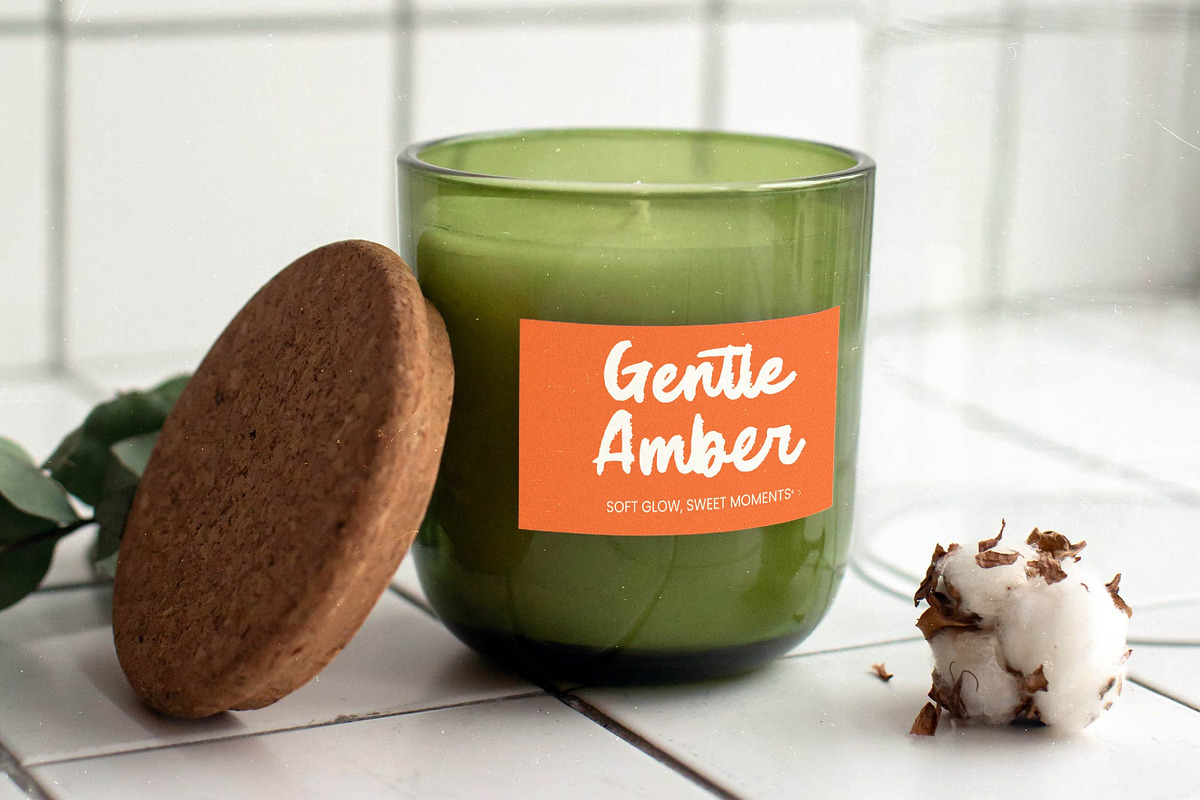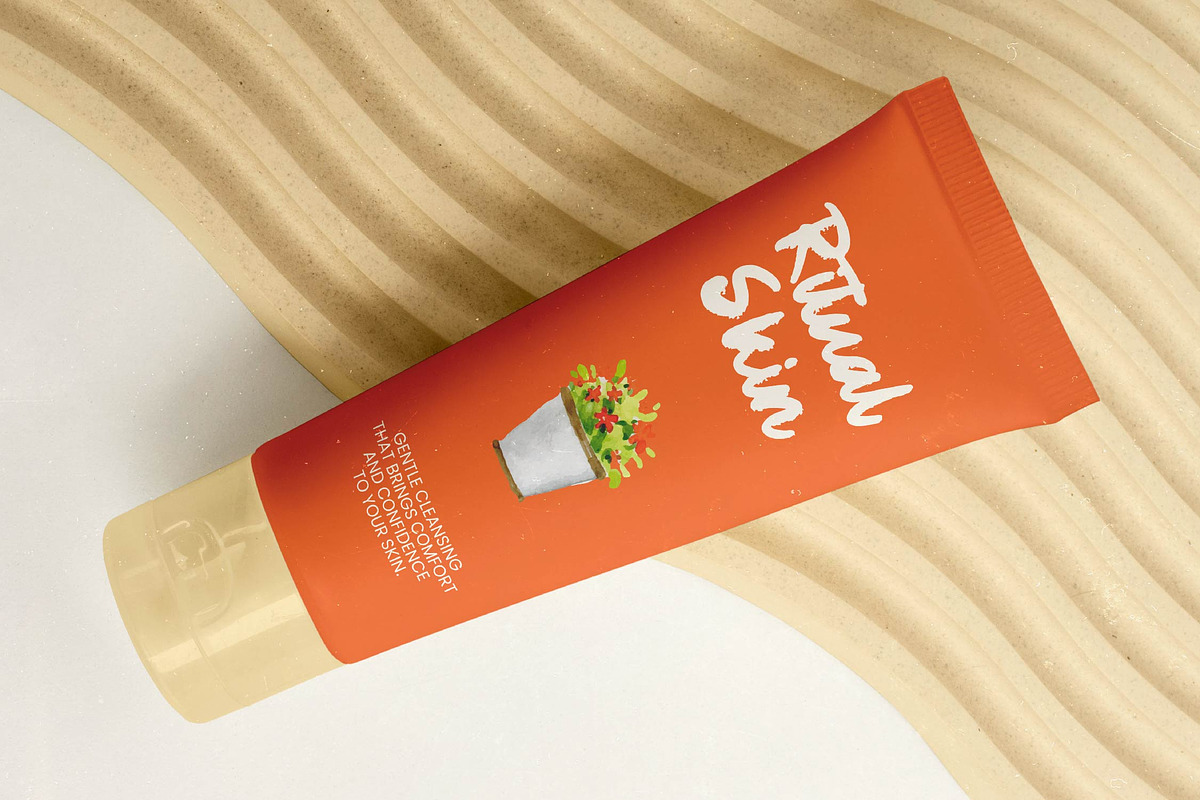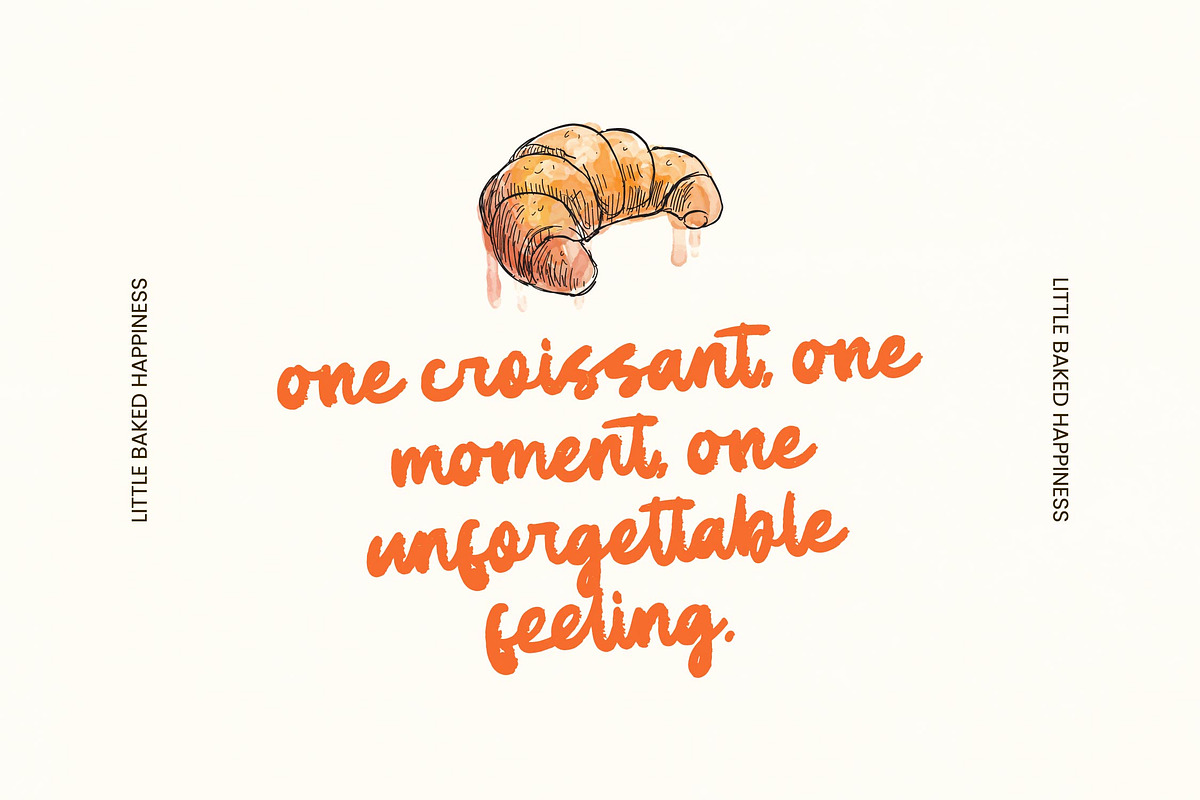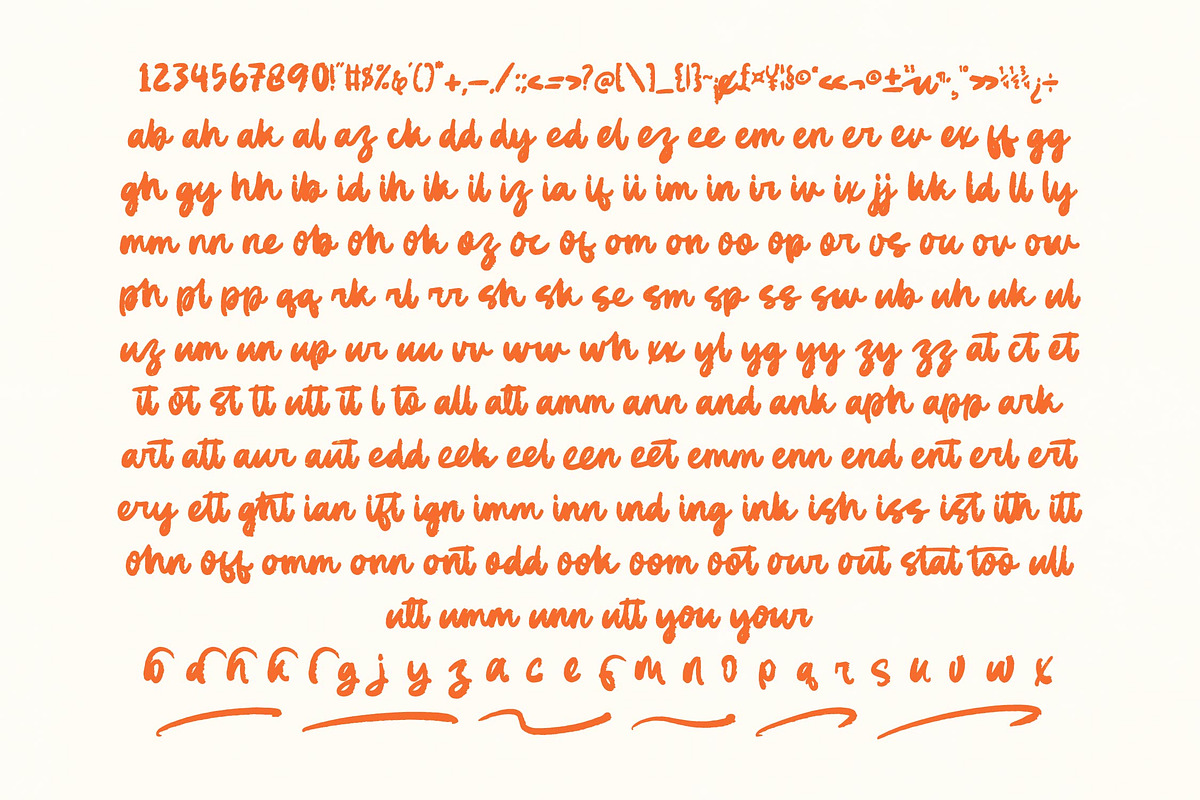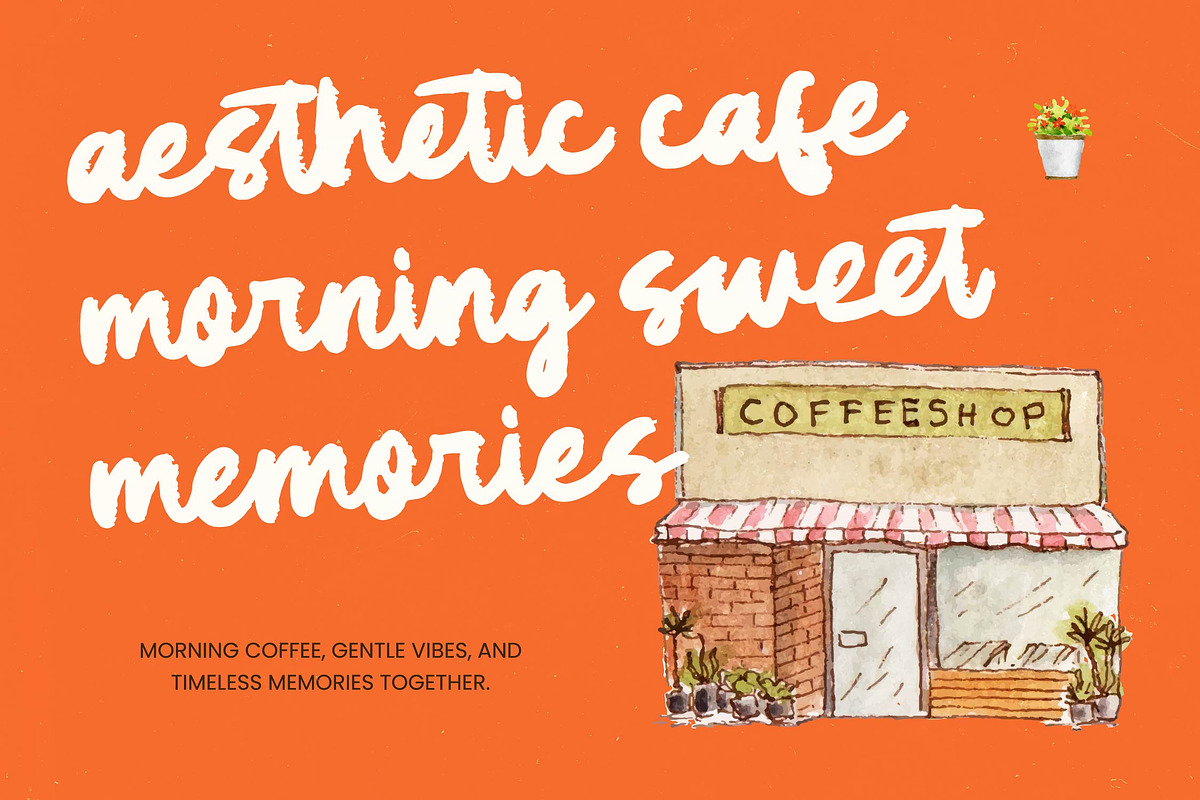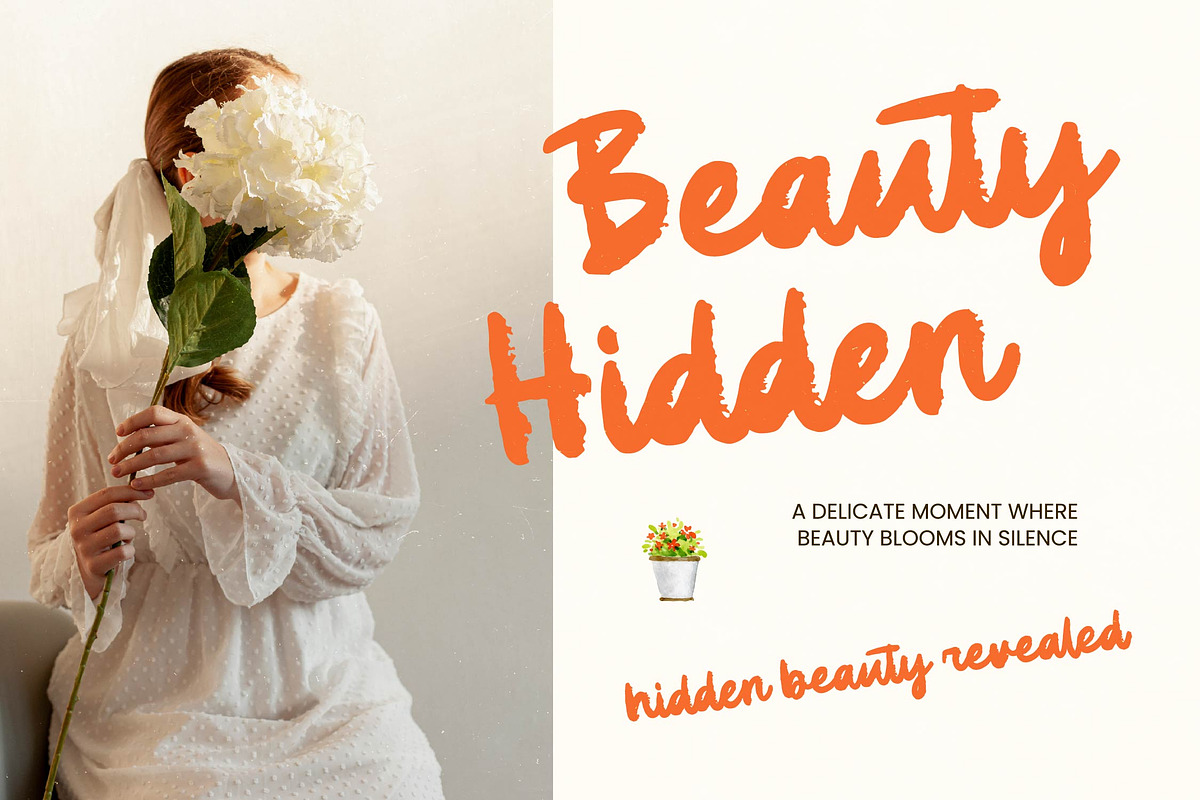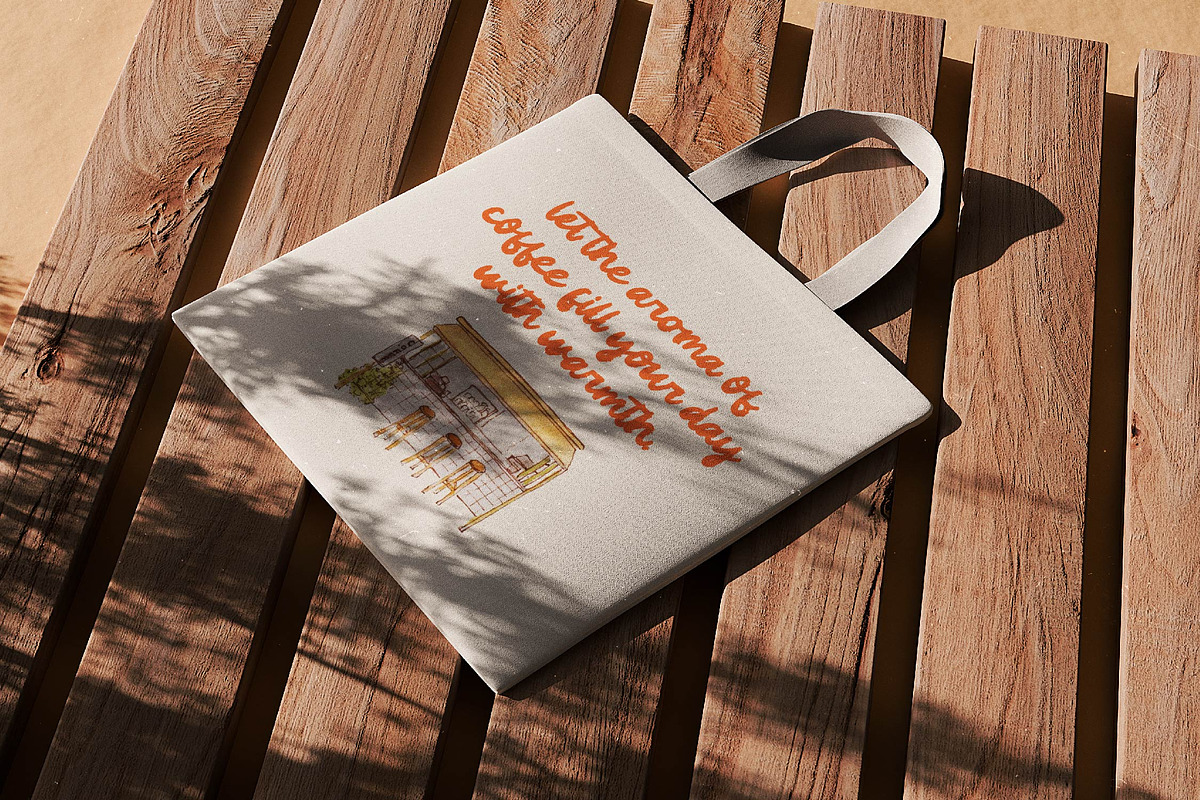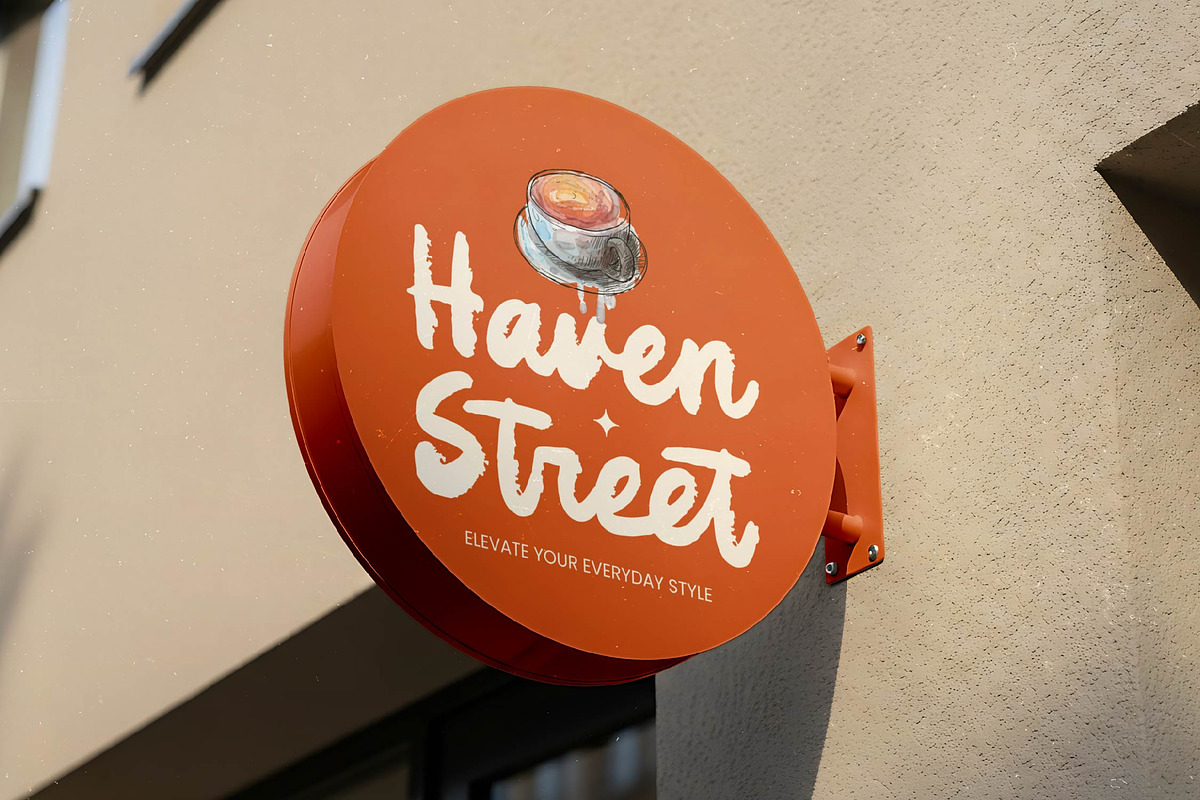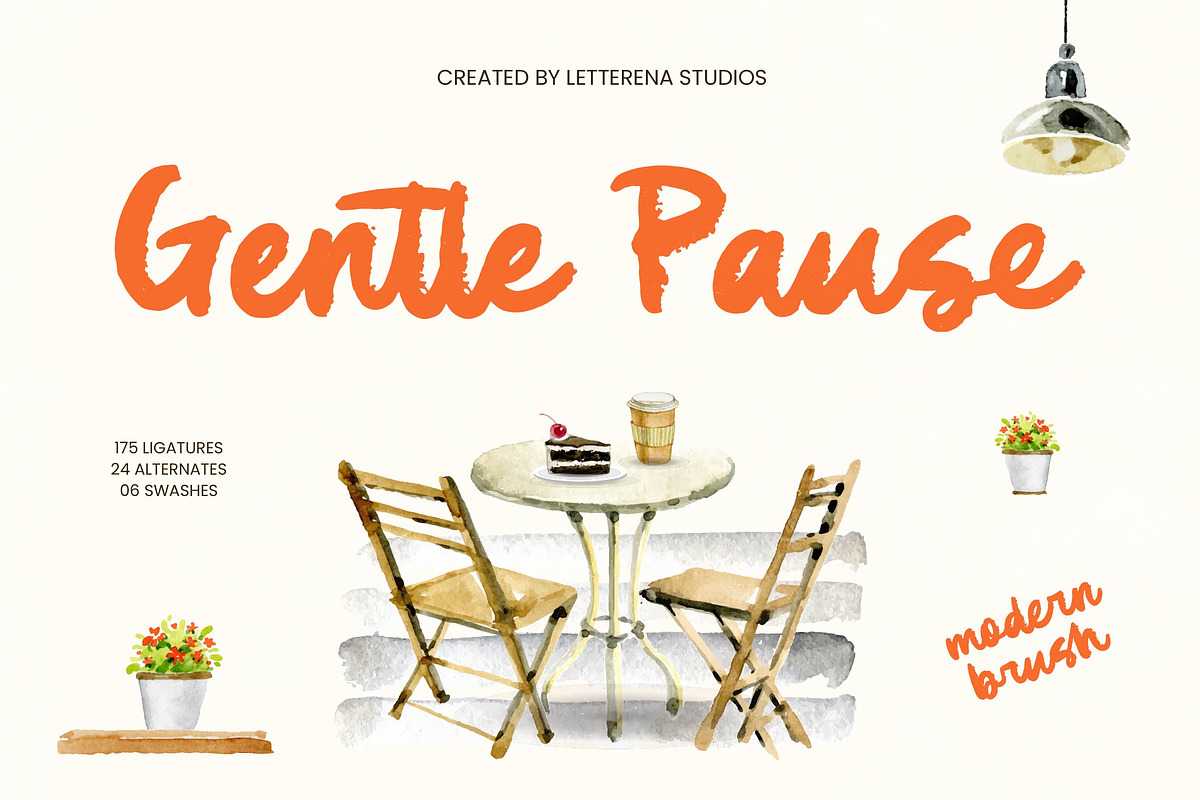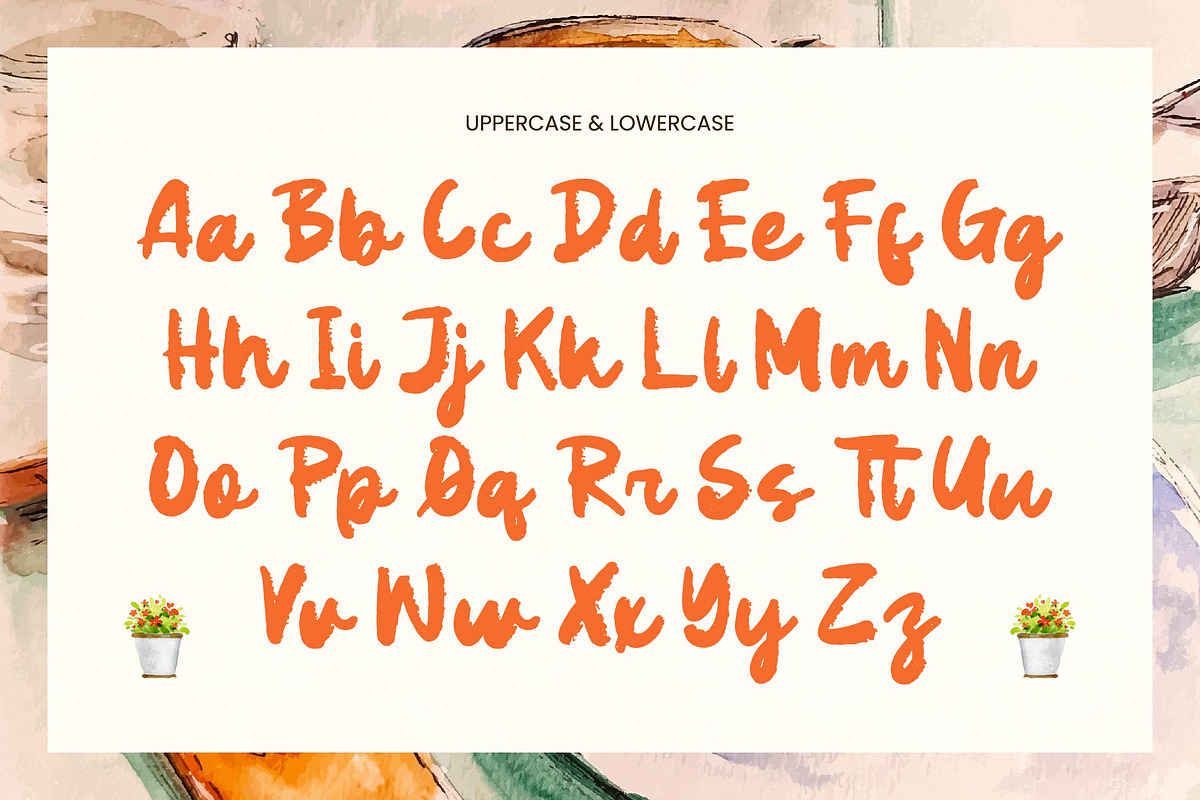
Gentle Pause Modern Brush
Gentle Pause - Modern Brush , Elevate your creative vision with the Gentle Pause - Modern Brush, a typeface that perfectly balances artisan texture with contemporary elegance. This font captures the essence of hand-drawn artistry, featuring raw, expressive strokes that bring an authentic human touch to any digital canvas. Its dynamic rhythm and organic flow ensure that your messaging feels personal, approachable, and high-end all at once.
Designed for maximum impact, Gentle Pause - Modern Brush is the ultimate choice for luxury branding, lifestyle packaging, and editorial layouts. It is perfect for logo design, social media storytelling, and boutique signage where a distinctive personality is required. Whether you are crafting invitation suites or marketing collateral for the hospitality industry, this font provides the sophisticated edge needed to stand out in a crowded market.
Functional excellence meets creative flair through a robust set of 175 ligatures and special swashes that allow for endless customization. With its extensive multilingual support, Gentle Pause - Modern Brush adapts seamlessly across global markets, making it incredibly versatile for international projects. This global adaptability ensures that your brand maintains a consistent and professional aesthetic regardless of the language or region.
Experience the perfect blend of rugged charm and modern minimalism with this premium brush typeface. The Gentle Pause - Modern Brush is more than just a font; it is a strategic design tool crafted to evoke emotion and drive brand recognition. Invest in a high-quality asset that guarantees your typography remains as timeless and impactful as your brand’s core identity.